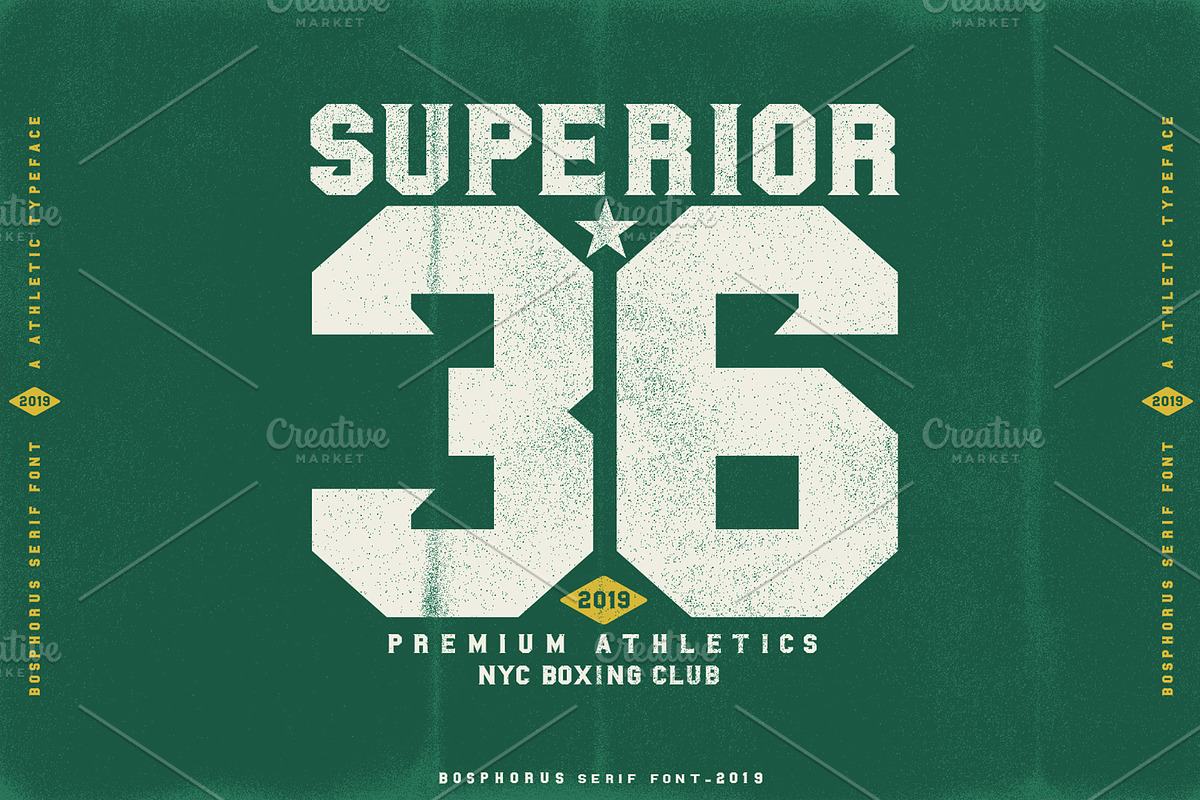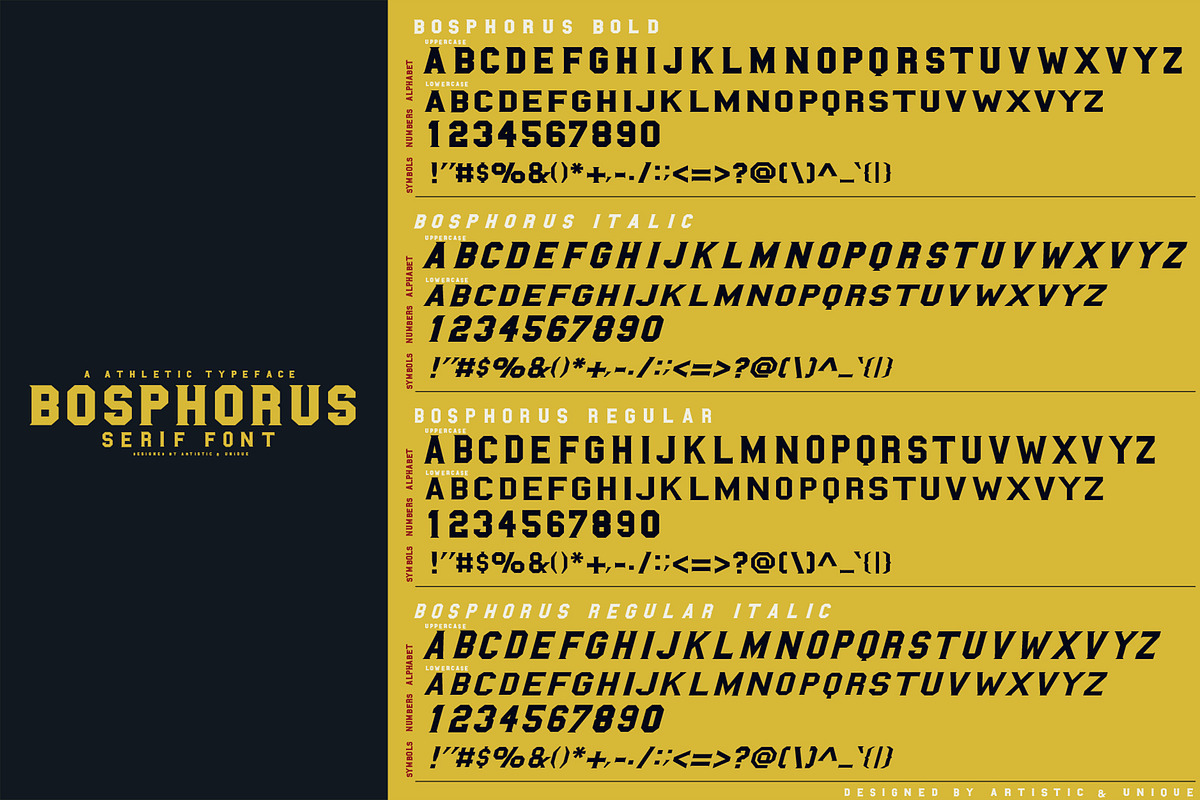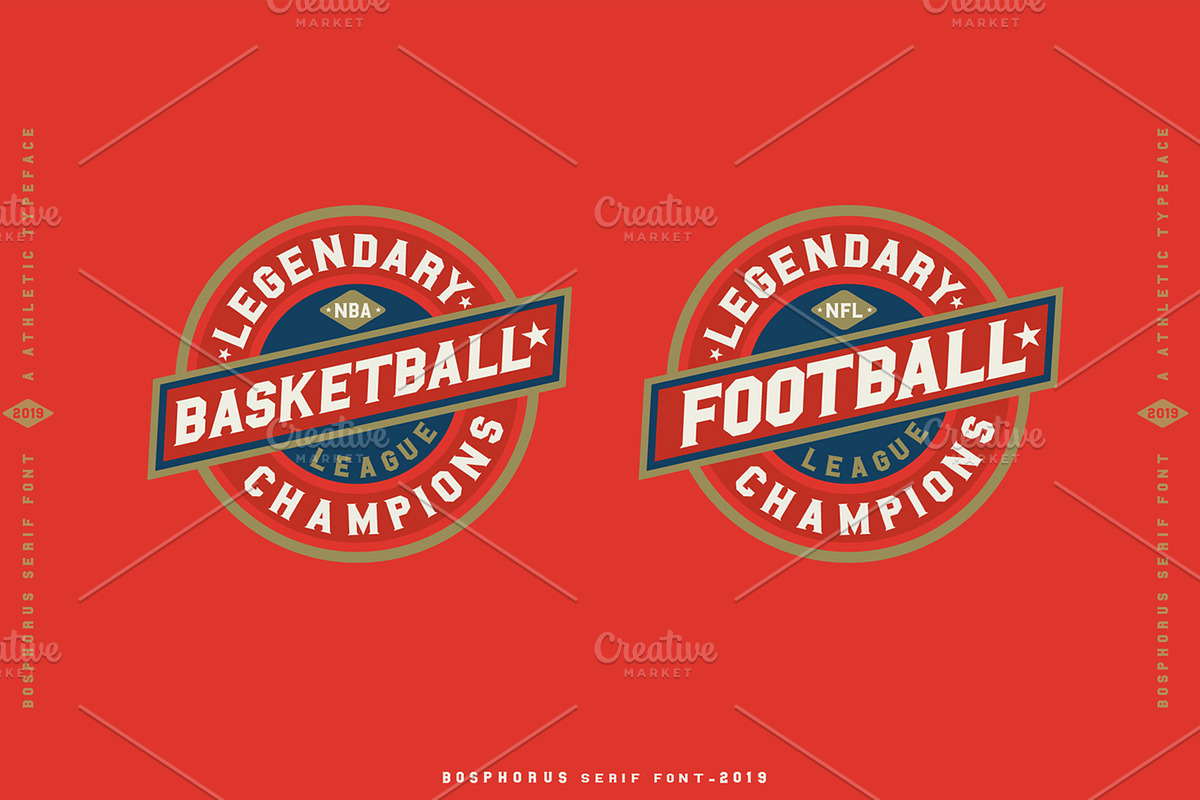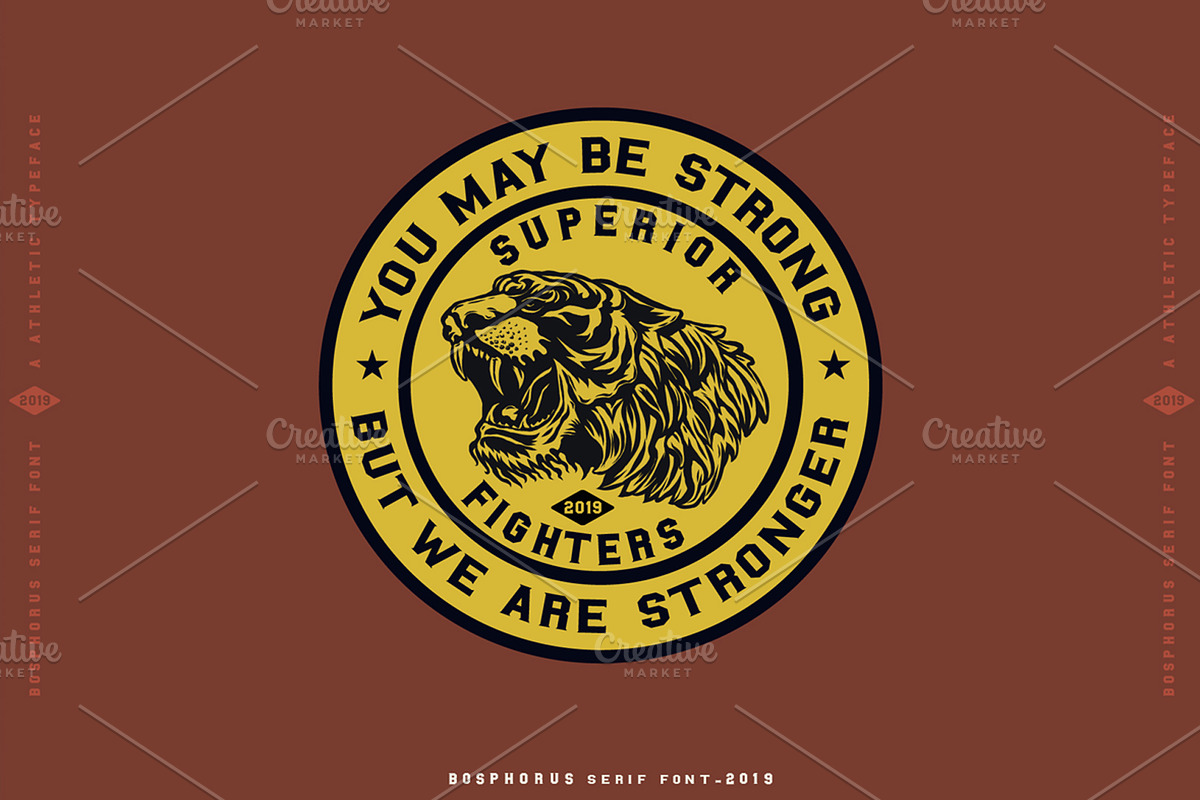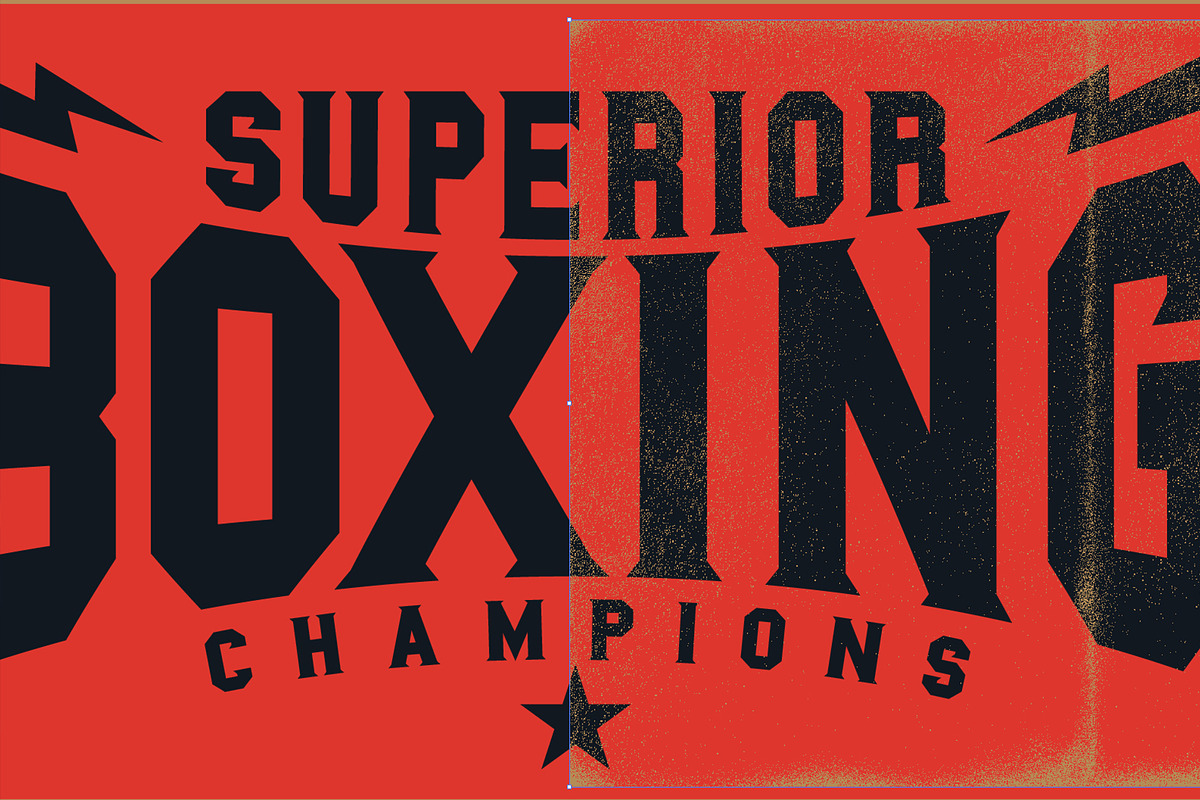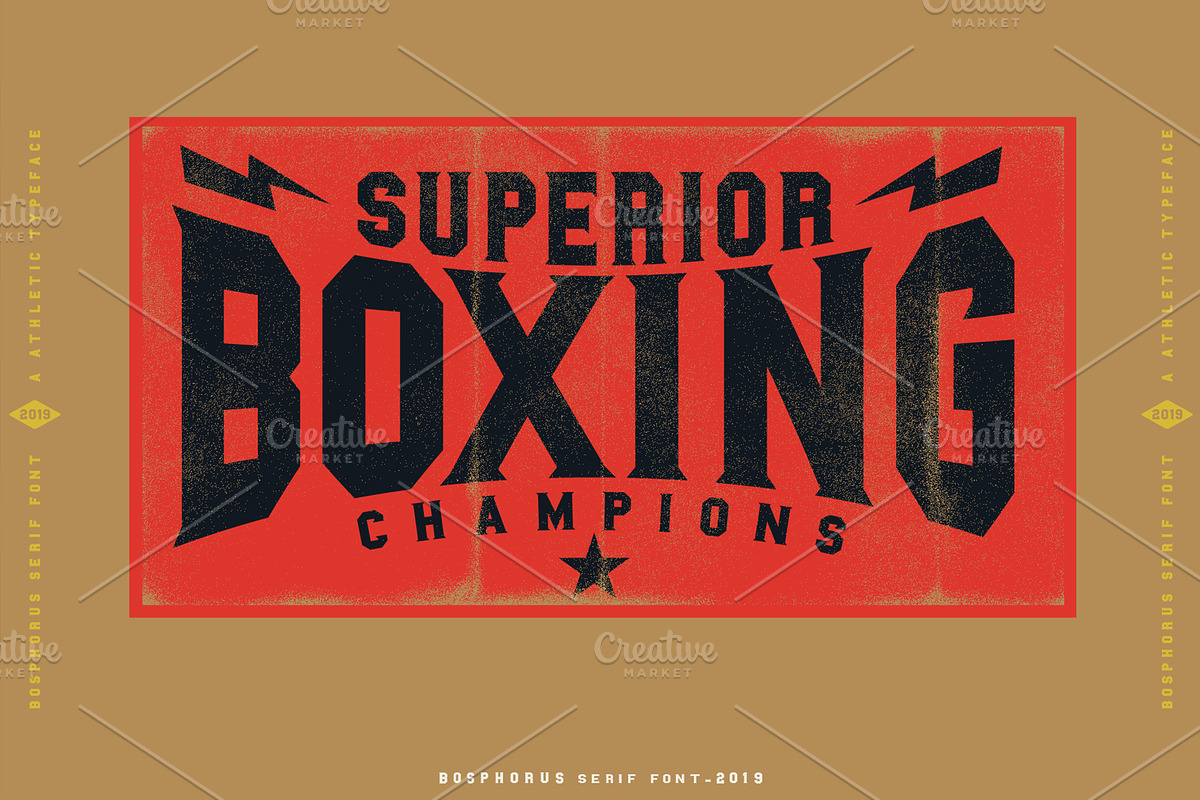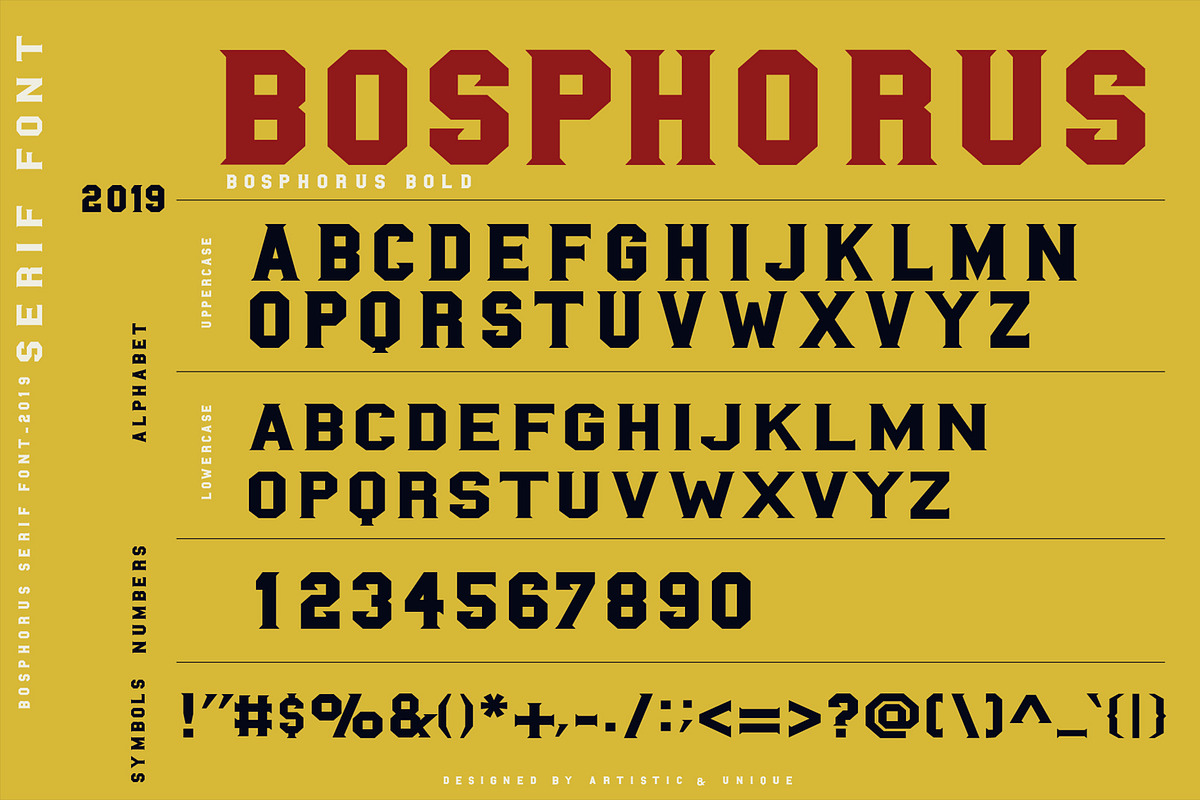
BOSPHORUS Serif font
BOSPHORUS Serif font (2019)
INTRODUCING - BOSPHORUS Serif font
BOSPHORUS font family the modern which inspired from sporty design and vintage style. There are 4 different style that you can apply in your design project. With this font you can create your unique designs. You can use this font for various purposes.
With this font you can create your unique designs. Make a great combination on your label design, branding, poster headline, movie title, store front, magazine headline, sport design, sport apparels etc.
Why BOSPHORUS Serif font is worth a look
BOSPHORUS Serif font by Artistic & Unique fits naturally into Branding, posters, packaging, typography.